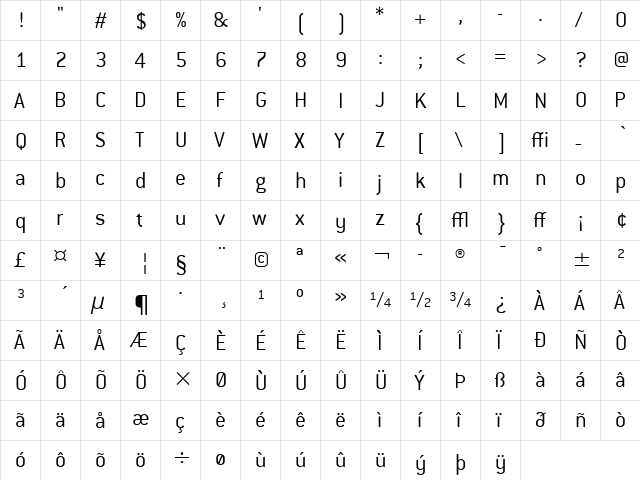
Conduit ITC Light
| Foundry | International Typeface Corporation |
Design Context for Conduit ITC Typeface
Conduit ITC is a composed and adaptable typeface that performs quietly and consistently across a wide range of design contexts. The delicate stroke weight brings airiness and refinement to layouts. The condensed width makes it efficient for tight spaces without sacrificing legibility.